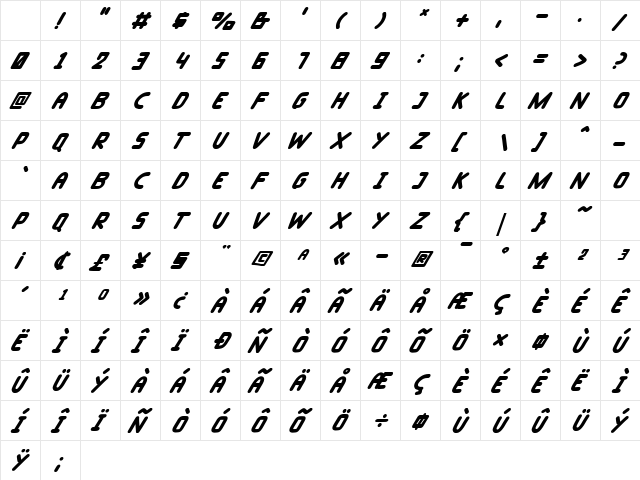
Complete Taylorsit Italic glyph index. Displaying only characters natively supported by Taylorsit Italic font.
Taylorsit is a composed and adaptable typeface that performs quietly and consistently across a wide range of design contexts. The slanted form adds forward momentum and visual energy.